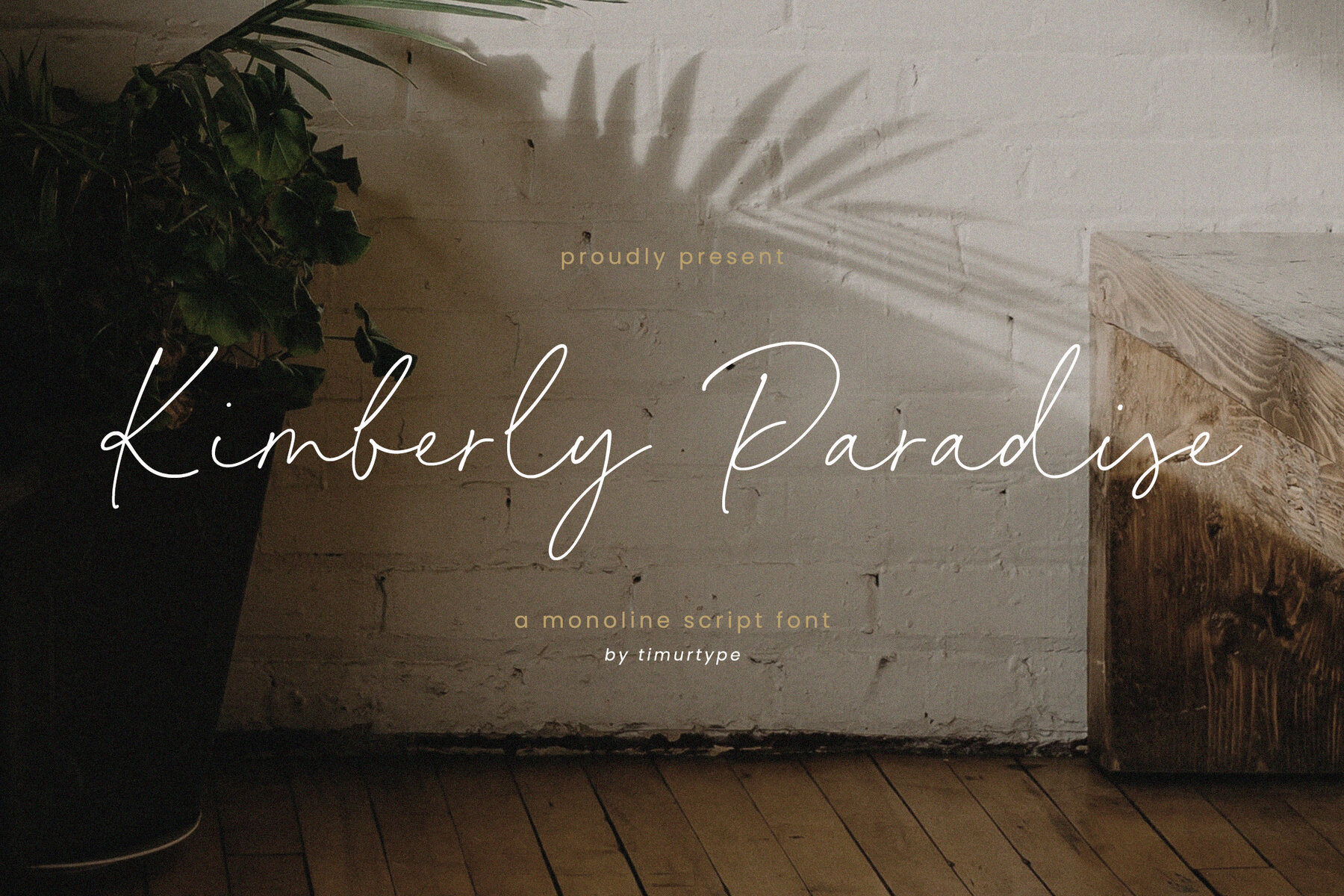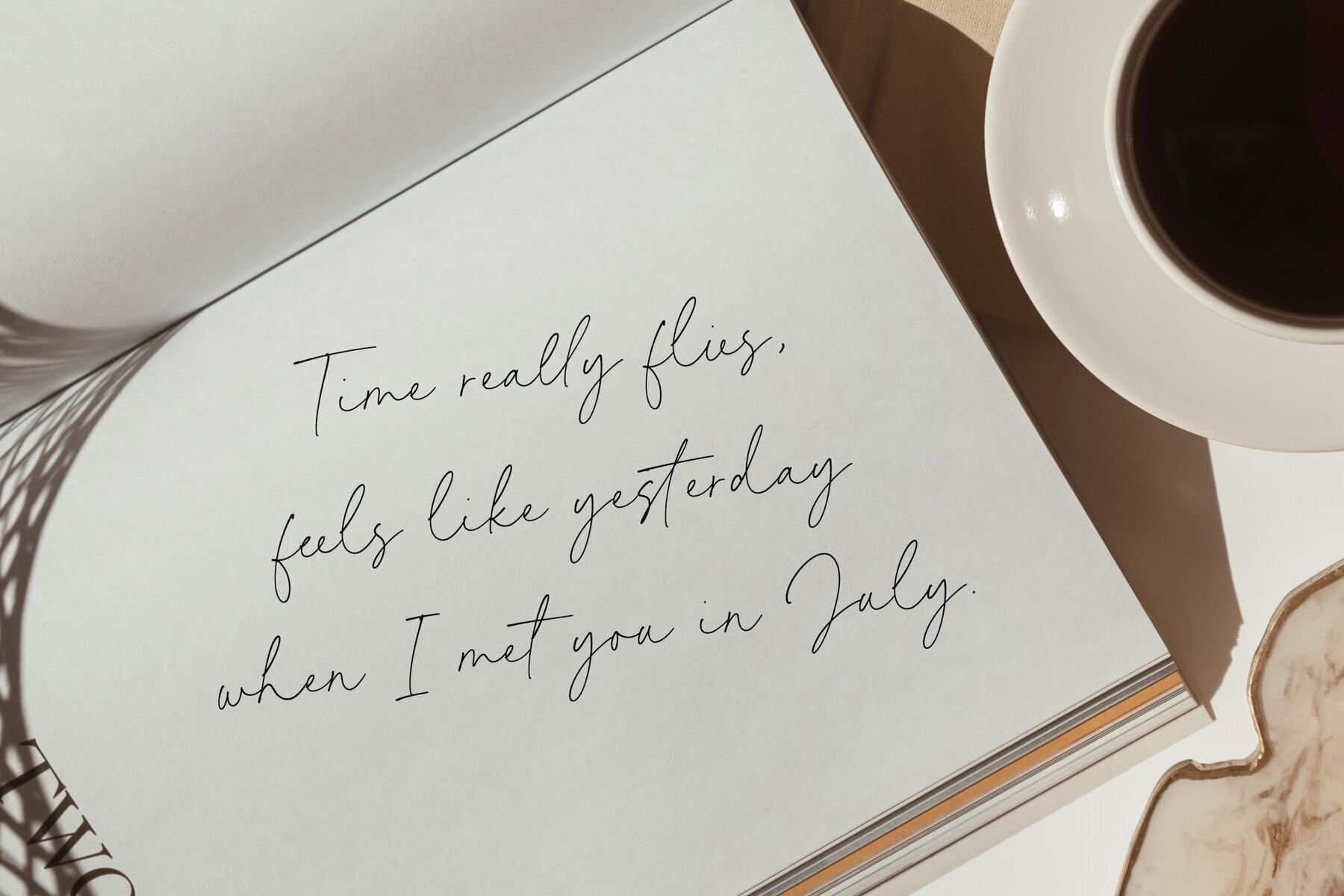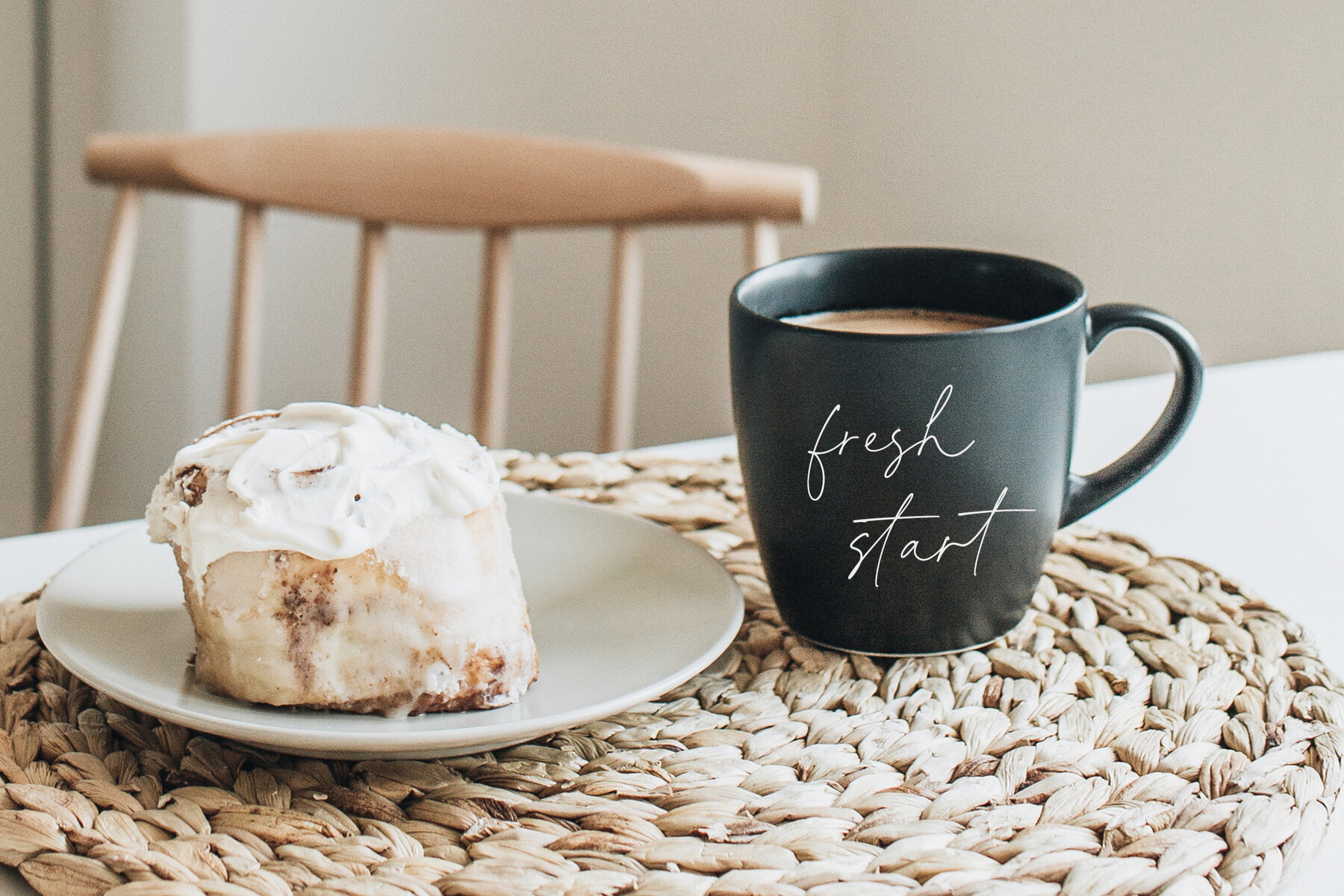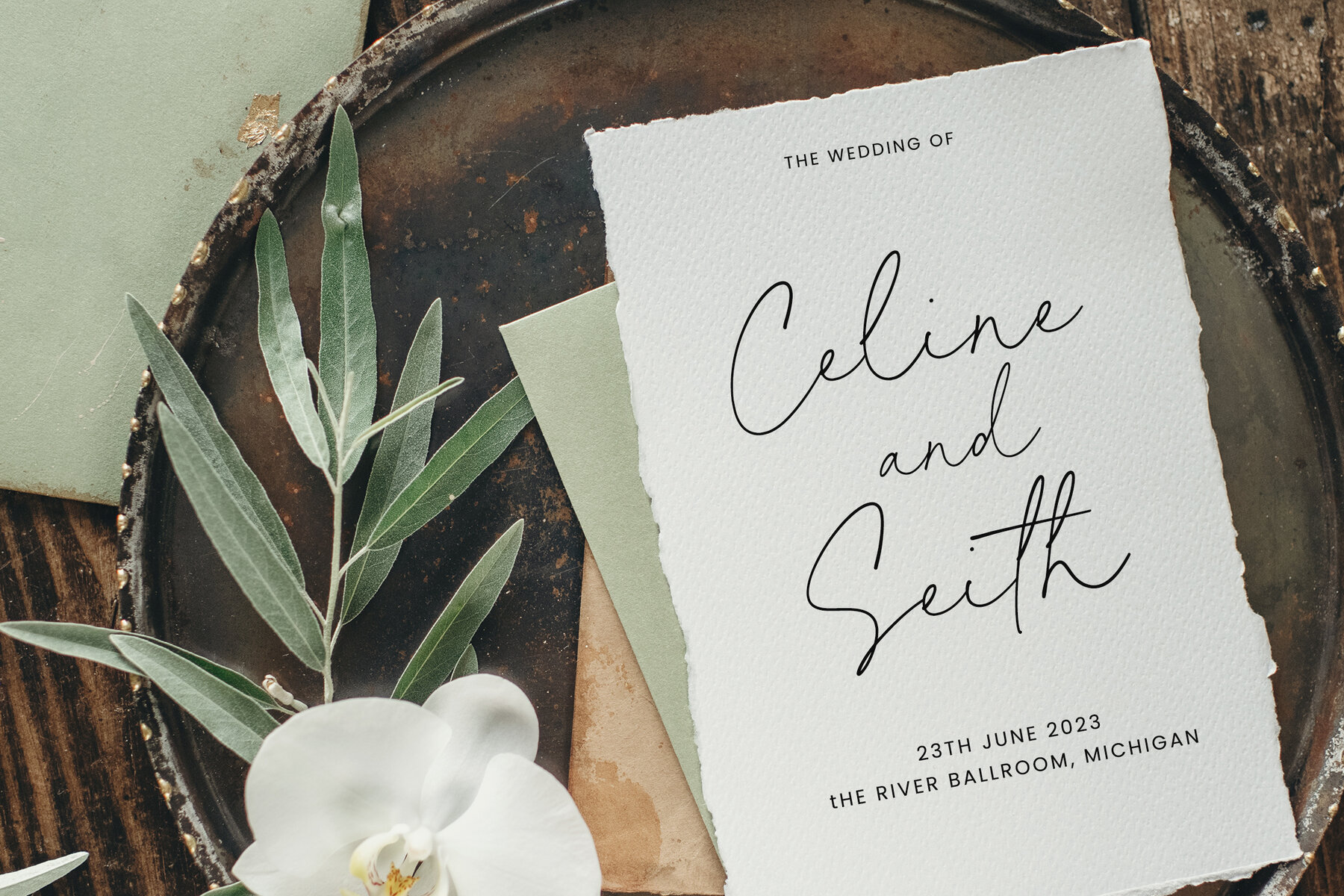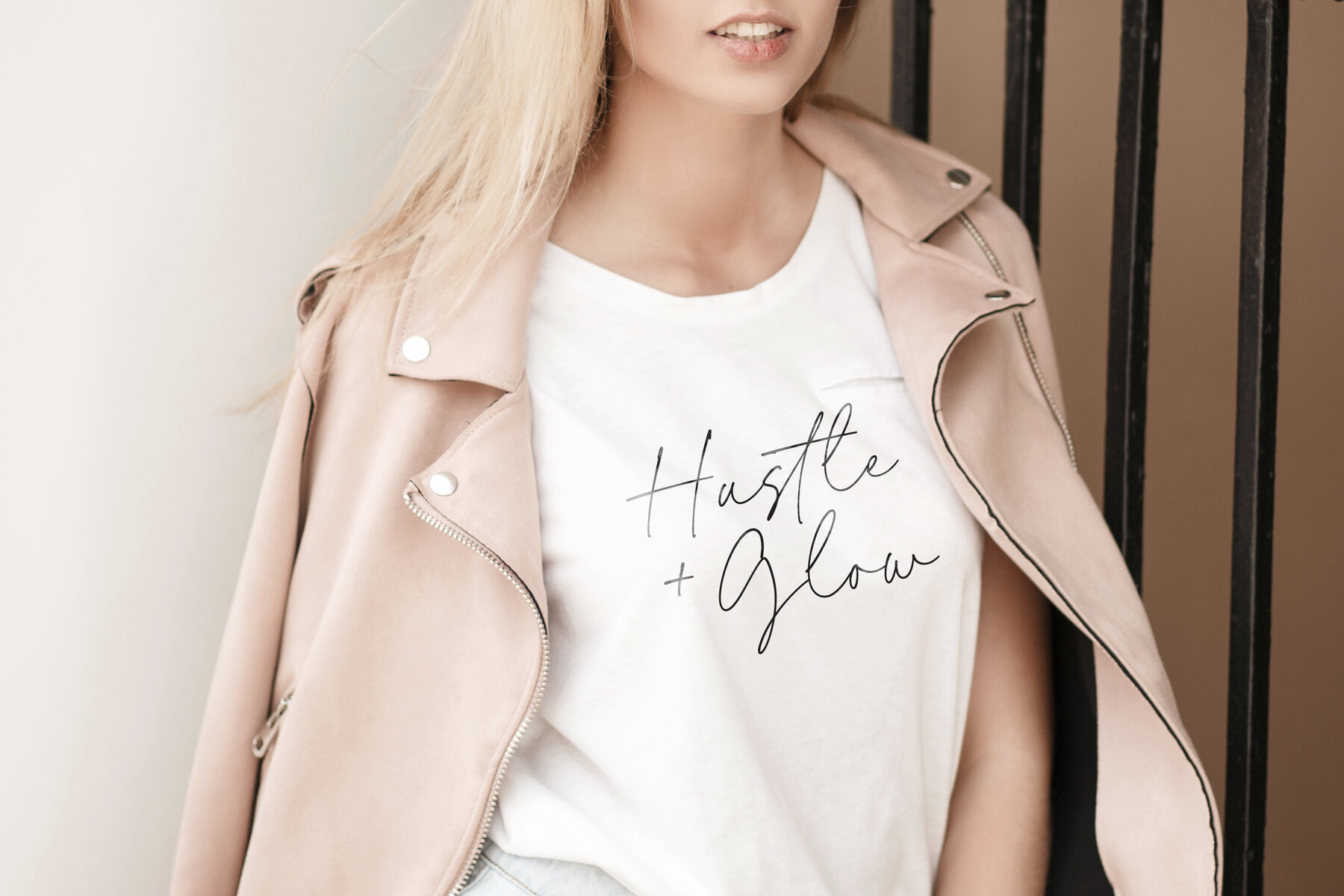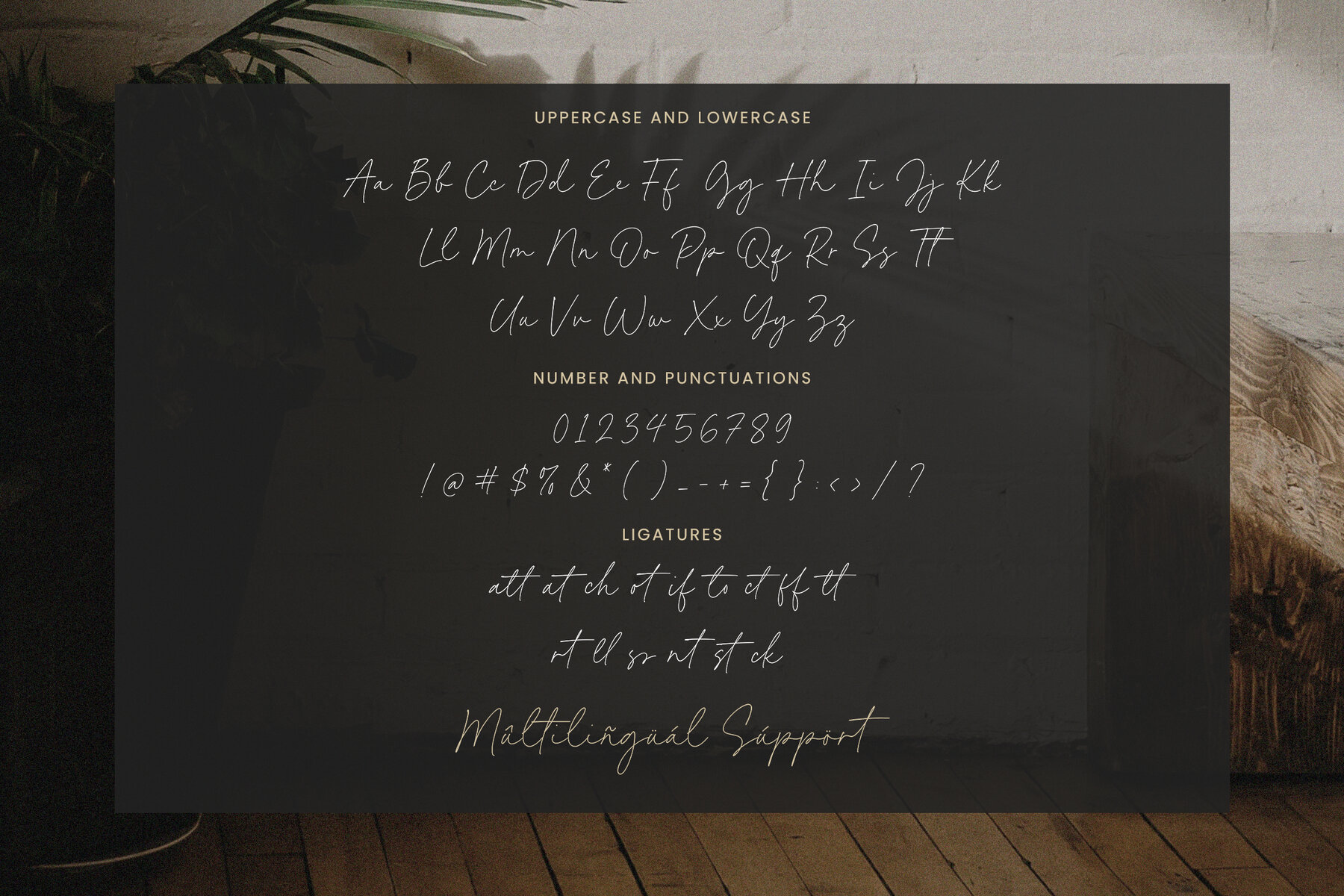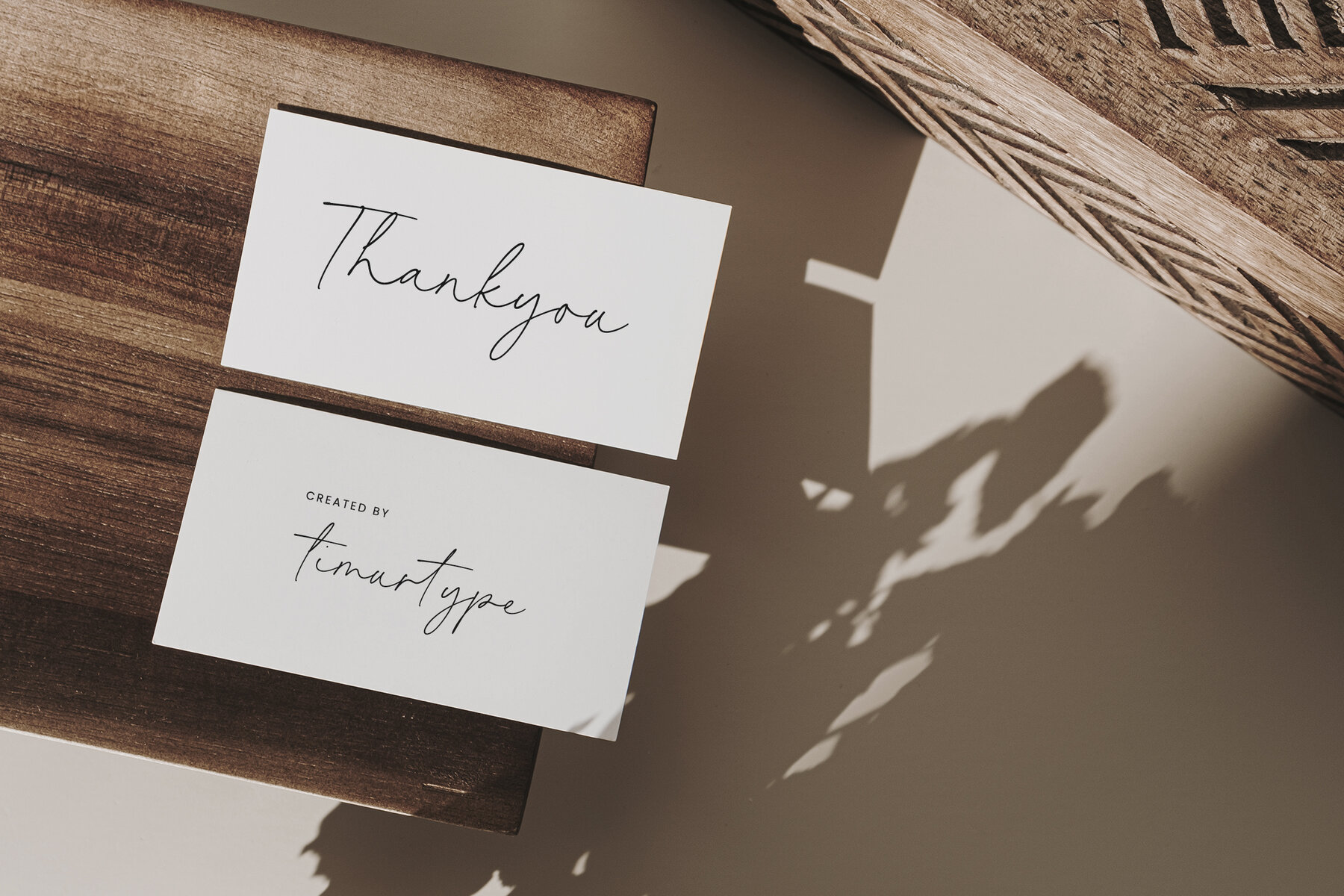
Kimberly Paradise Font
Kimberly Paradise
Kimberly Paradise is a modern script font crafted to bring a fresh, warm, and inviting feel to your projects. This font is ideal for product packaging, branding endeavors, magazines, social media posts, weddings, and more. Whether you're designing a logo or adding a personal touch to your creations, Kimberly Paradise offers a versatile and elegant solution to enhance your work.
The font includes a full set of standard alphabet characters and punctuation, making it easy to integrate into various design projects. Additionally, it supports multiple languages, ensuring that your message reaches a global audience. Let Kimberly Paradise add a touch of sophistication to your next project.